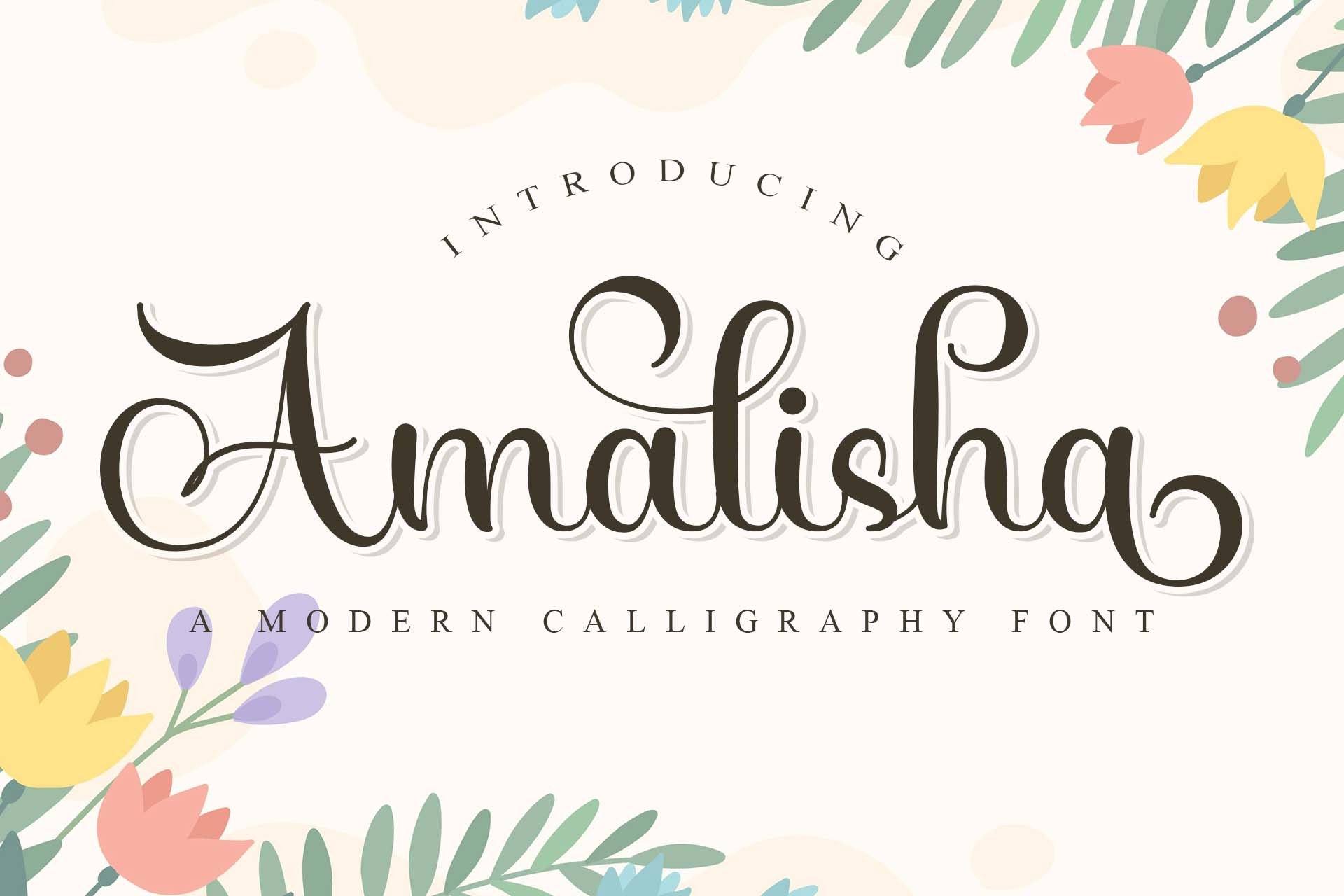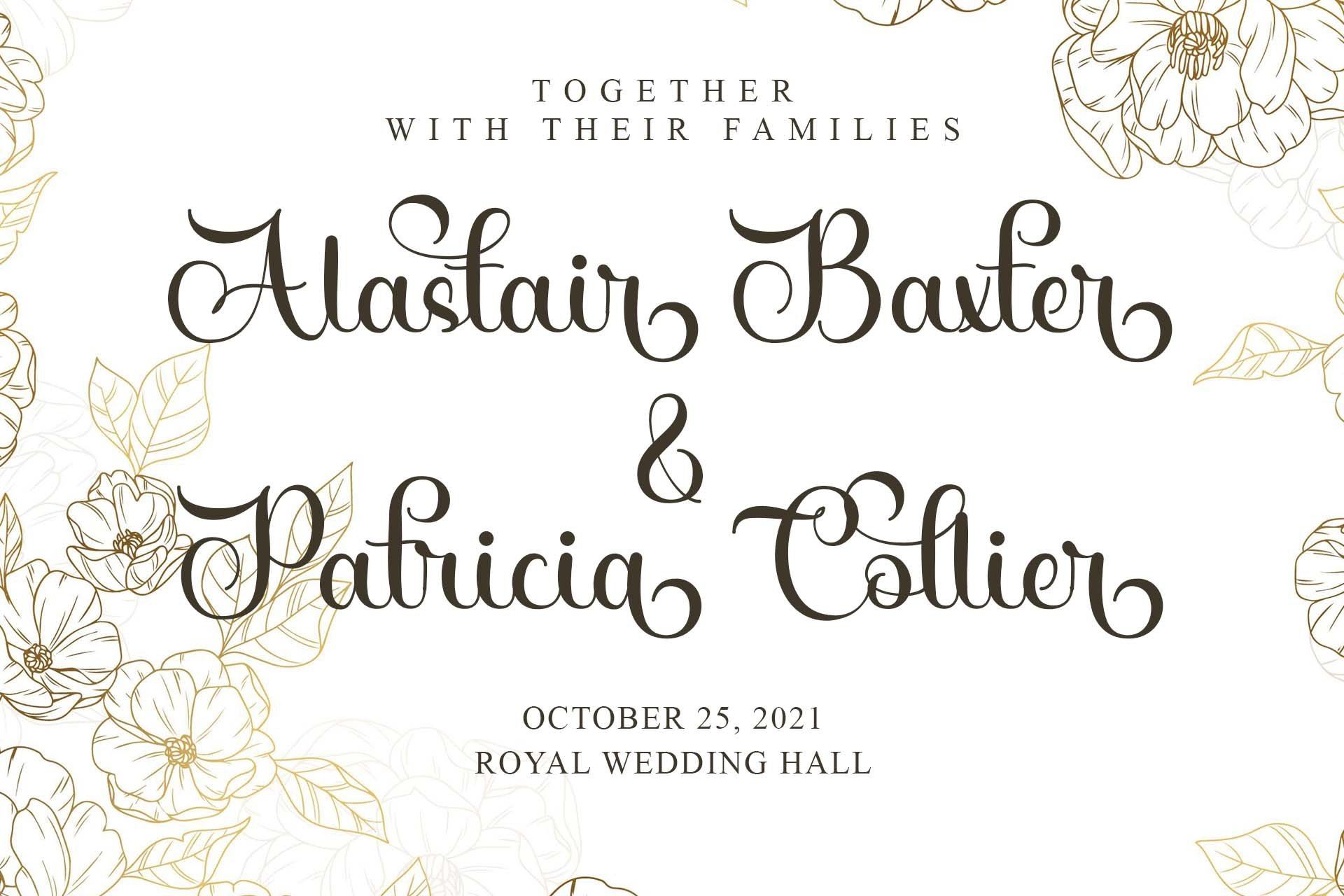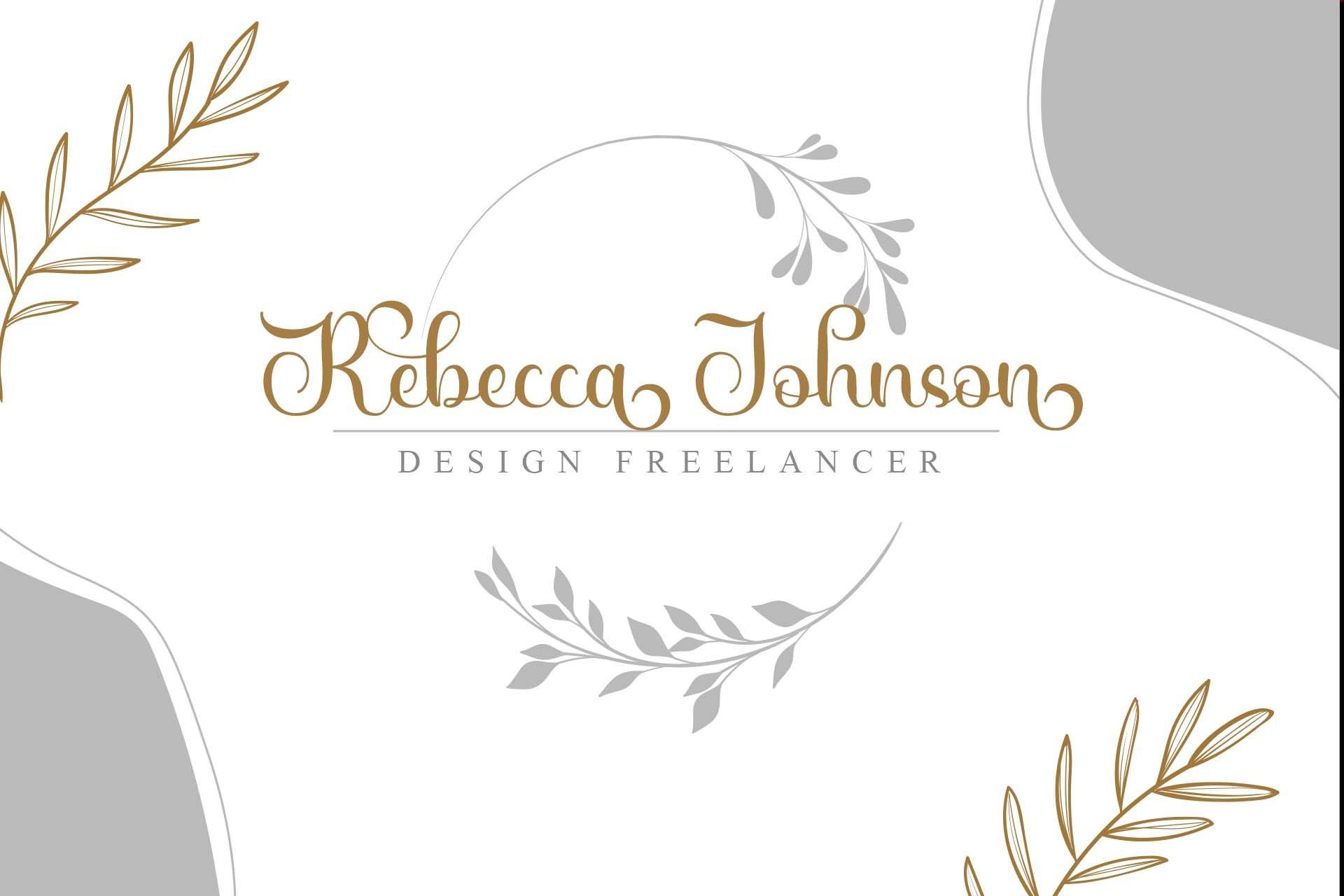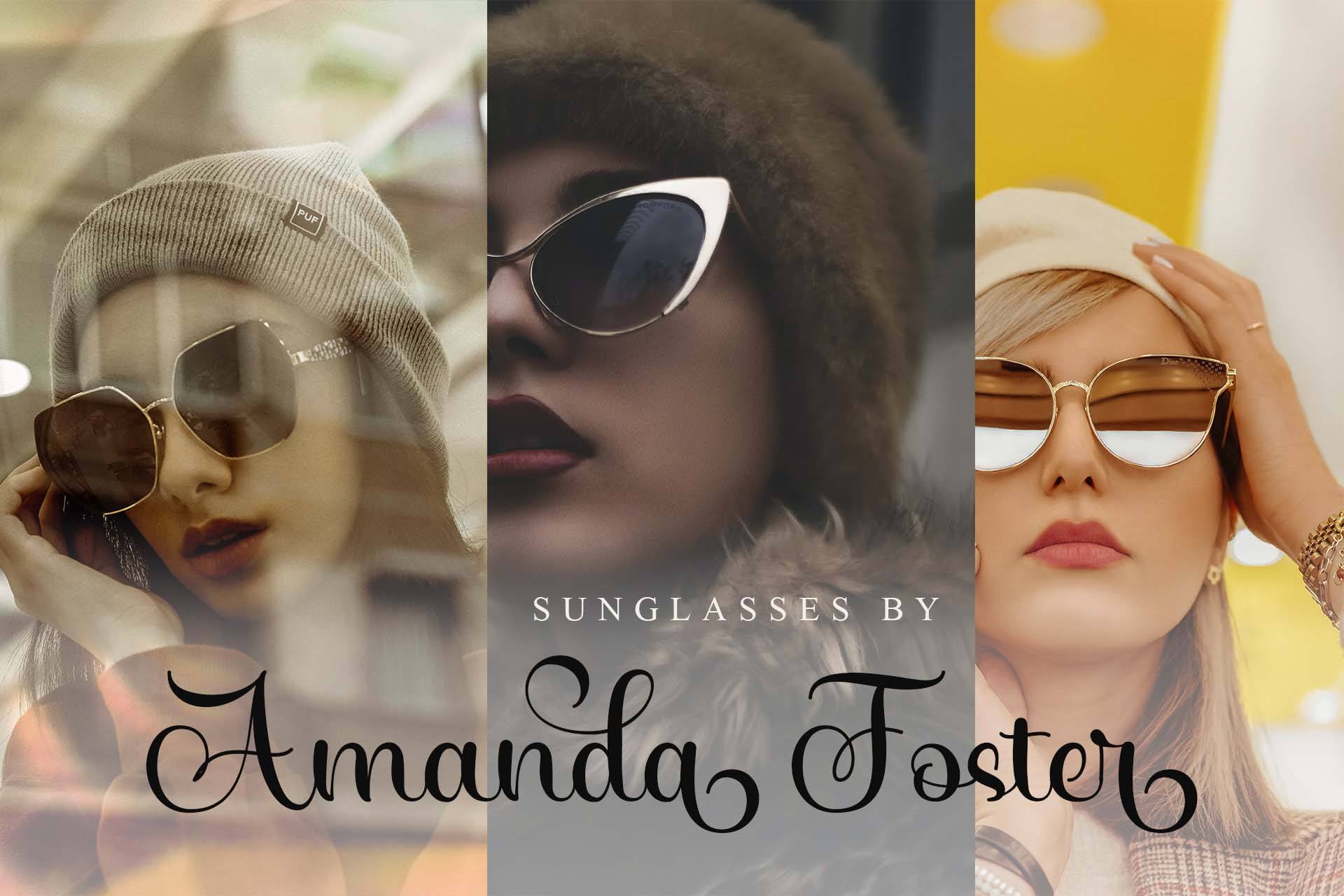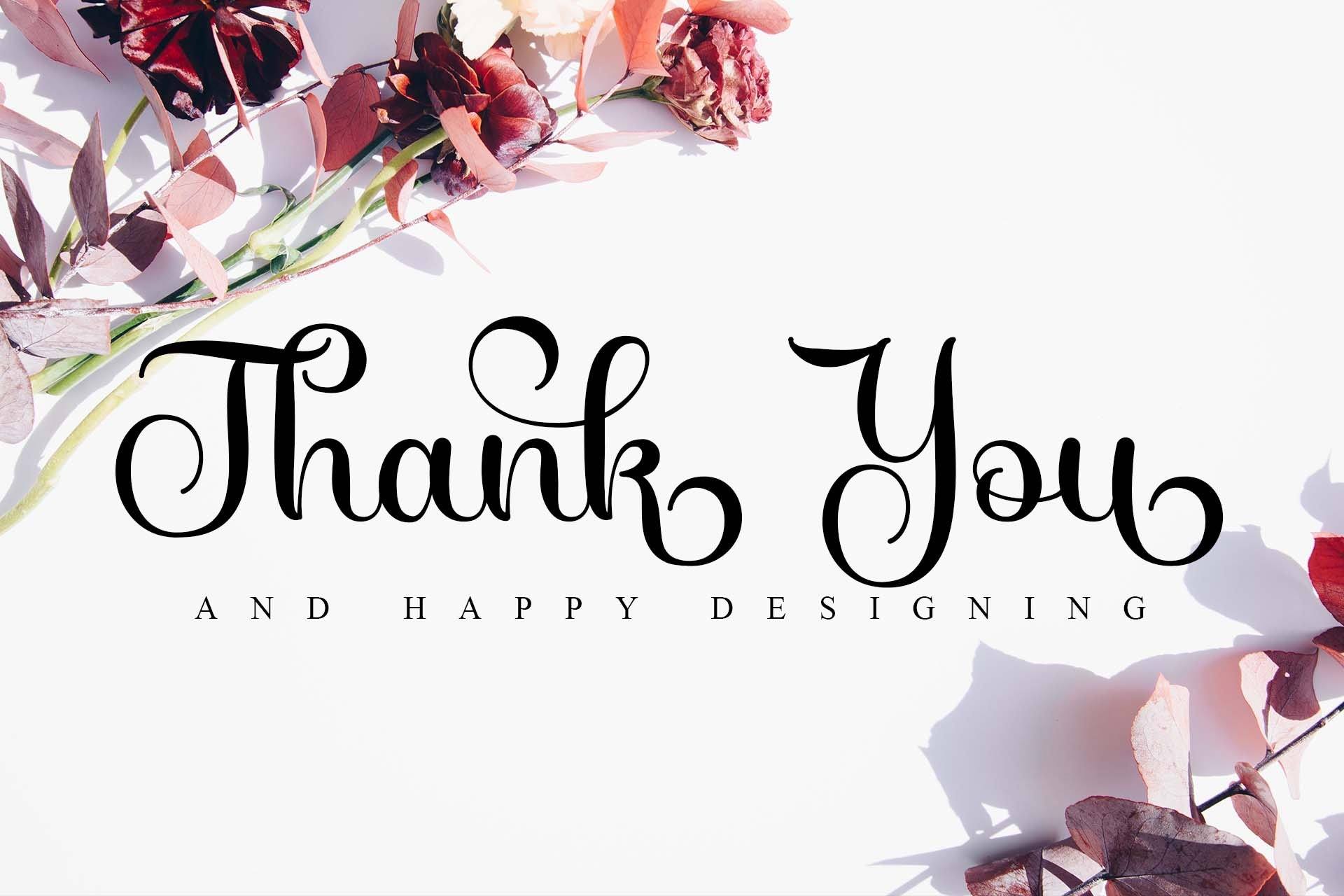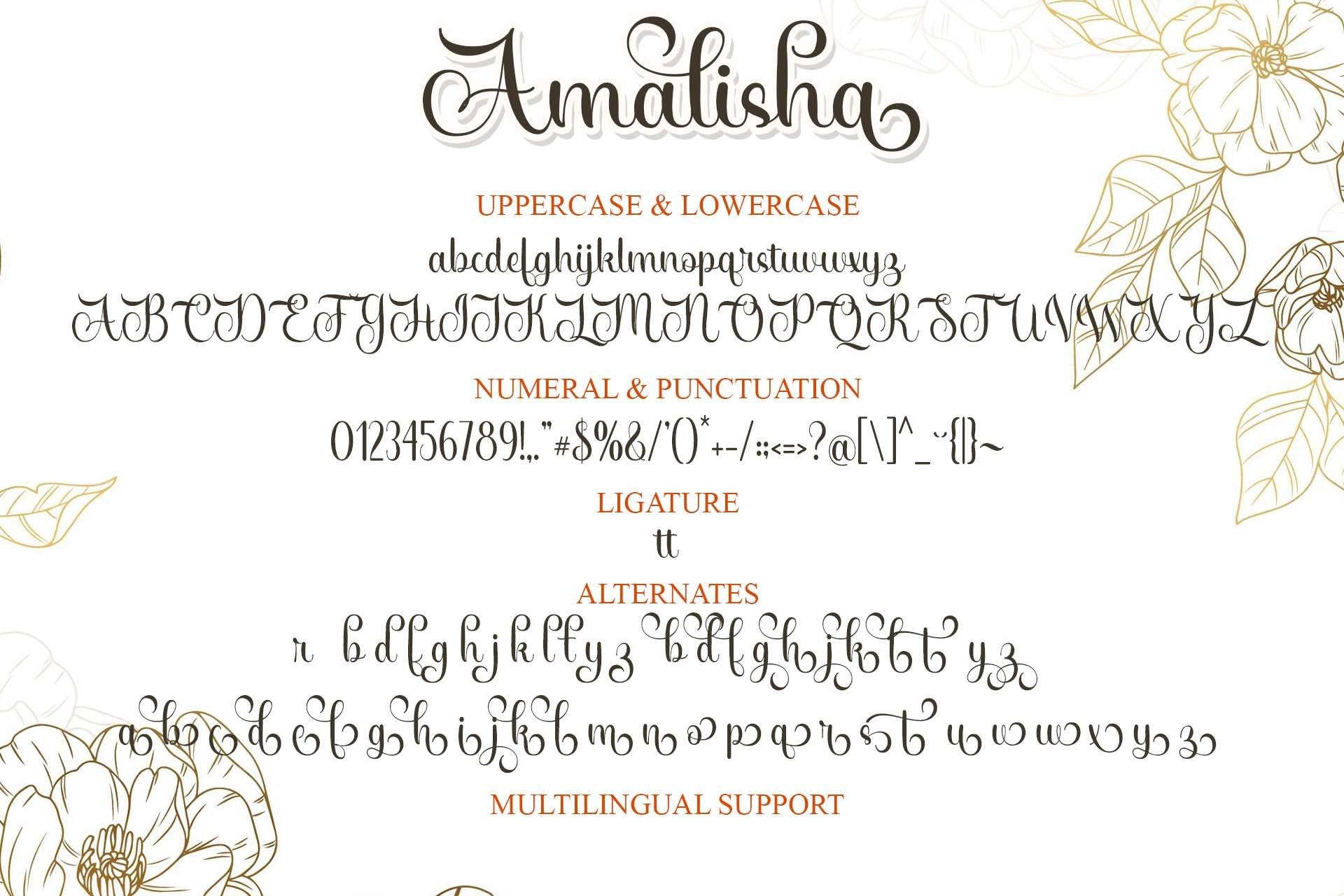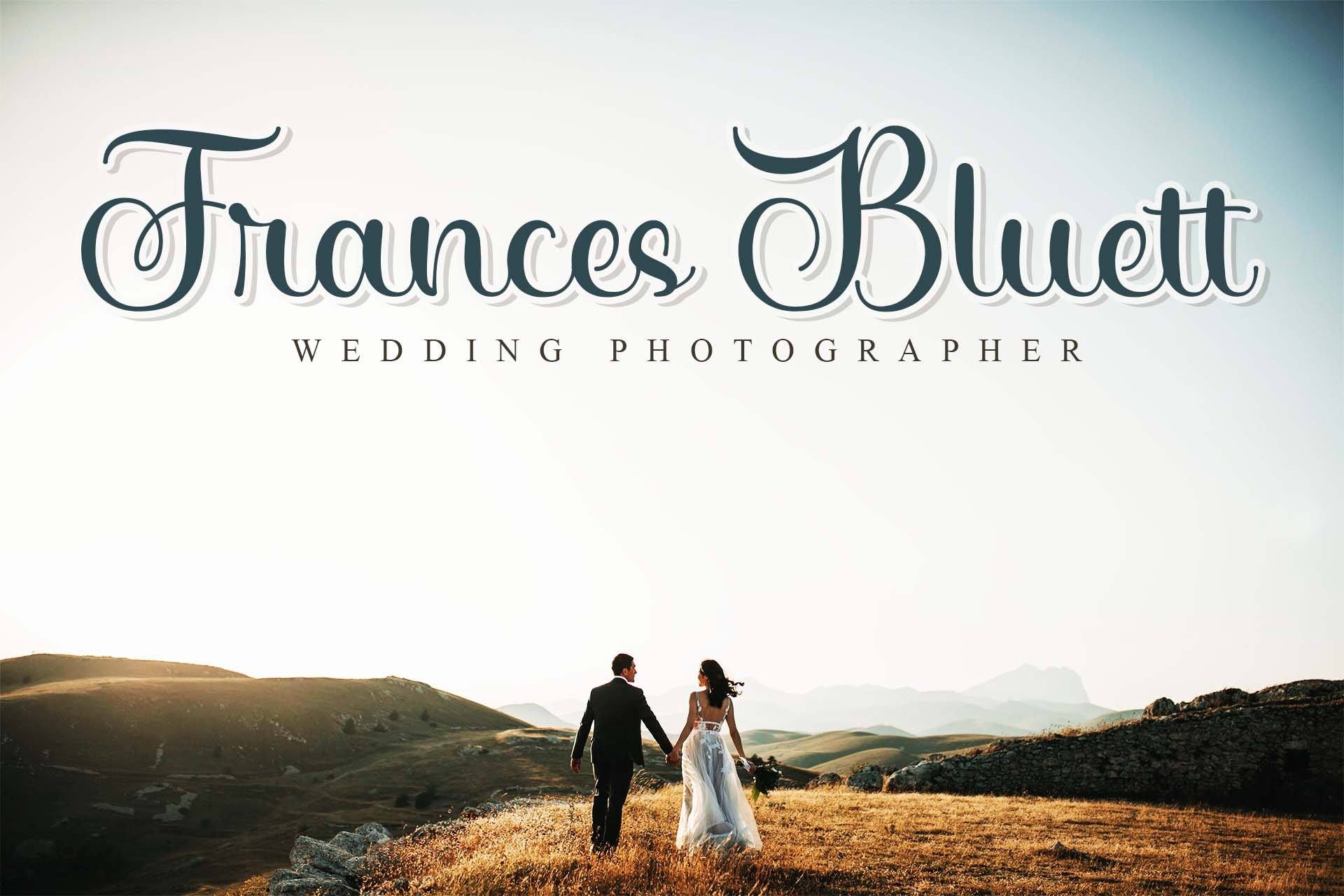
Amalisha
About Amalisha
Amalisha is a modern calligraphy font. Add this romantic and lovely looking font to each of your love letters, wedding invitations or favorite design ideas, and you will be astounded by the outcome. Greating is PUA encoded which means you can access all of the glyphs and swashes with ease!